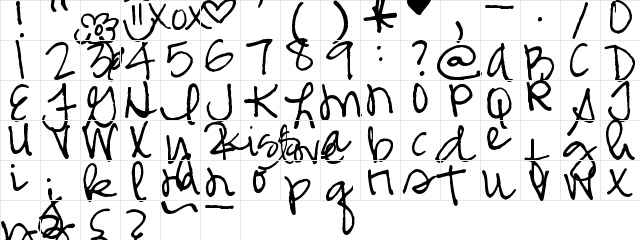
Pea Glo-Girl Script Regular
Design Context for Pea Glo-Girl Script Typeface
Pea Glo-Girl Script brings a calligraphic fluidity to the page — its connecting strokes and expressive curves give it an unmistakably human quality.
Font Pairing: Combine Pea Glo-Girl Script with a simple geometric sans for maximum contrast — the tension between flowing curves and clean structure is a classic typographic pairing.
Pro Tip: Pair Pea Glo-Girl Script with a clean sans-serif for supporting text. The contrast between fluid script and geometric structure creates an elegant typographic hierarchy.